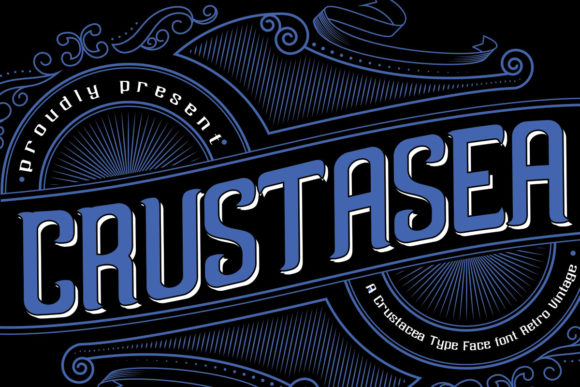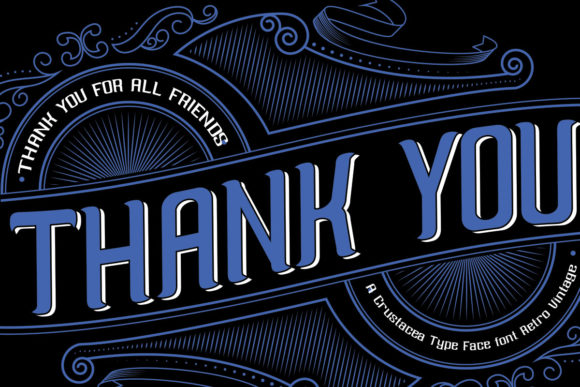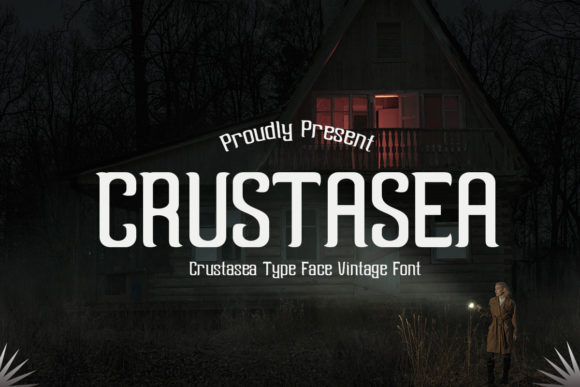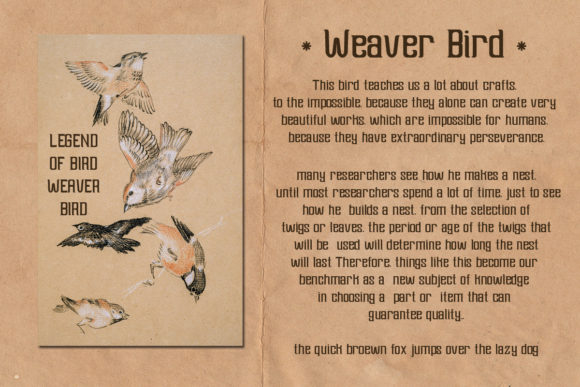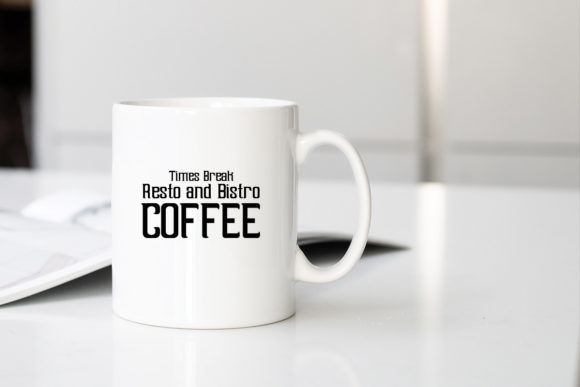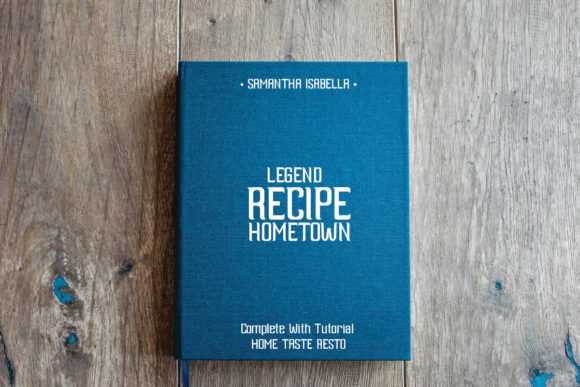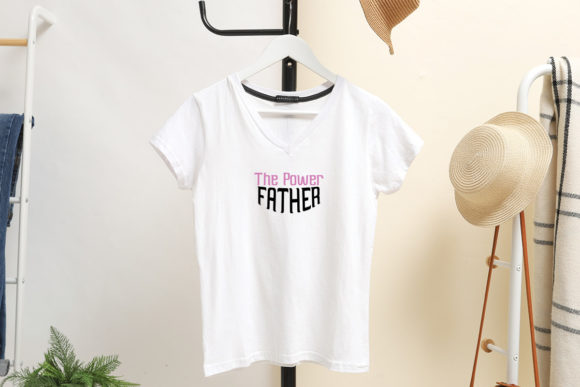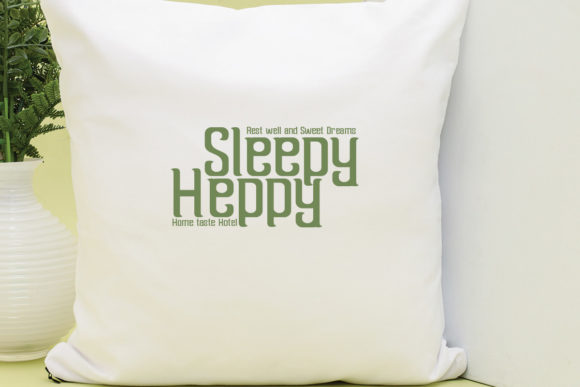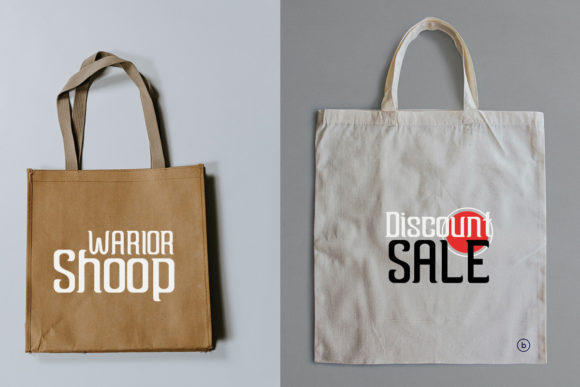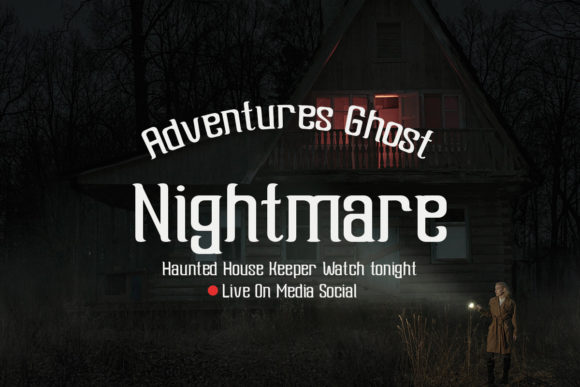
Crustasea
Crustasea: A Bold and Retro Slab Serif Font
Crustasea is a distinctive slab serif font that combines old-style charm with a modern twist. This eye-catching typeface is designed to add a bold, retro-cool look to various design projects while maintaining clarity and readability.
Key Features of Crustasea
• Old Slab Serif Design: Features classic slab serif characteristics with a contemporary update.
• Modern Look: Offers a fresh take on retro typography for current design trends.
• Bold Presence: Provides a strong, authoritative appearance in designs.
• Clear Readability: Maintains legibility despite its bold and decorative nature.
• Retro-Cool Aesthetic: Perfect for designs requiring a vintage yet trendy vibe.
• Versatile Application: Suitable for a wide range of projects needing impactful typography.
Ideal Uses for Crustasea
Crustasea’s unique characteristics make it particularly well-suited for:
• Retro-inspired branding and logo design
• Bold headlines and titles
• Poster and advertisement layouts
• Packaging design with a vintage flair
• Editorial designs requiring a strong typographic presence
• Any project needing dashing and mighty typography
When incorporating Crustasea into your designs, consider these tips:
• Use for headlines or short blocks of text to maximize its bold and retro impact
• Experiment with different sizes to balance its strong presence in layouts
• Take advantage of its clear readability for important information in designs
Crustasea is an excellent choice for designers looking to add a bold, retro-cool slab serif font to their typographic toolkit. Its ability to symbolize designs boldly while maintaining readability makes it stand out in the world of typography. Whether you’re working on logo designs for vintage-inspired brands, creating layouts for eye-catching posters, or developing content that requires a touch of retro authority, Crustasea offers the perfect blend of old-school charm and modern impact.
Furthermore, Crustasea’s versatility allows it to shine in various contexts. From vintage-inspired designs to more contemporary layouts that need a touch of retro flair, this font can elevate your projects with its bold presence. Its clear and authoritative style works particularly well in designs that require a strong and impactful mood.
In conclusion, Crustasea is a font that truly captures the essence of retro coolness with a modern twist. Its ability to work well in both vintage-style projects and contemporary designs that require a bold, authoritative touch showcases its flexibility. For those looking to add a dash of retro-cool style to their work, Crustasea can even enhance themed creations with its unique, mighty character. It’s the perfect choice for designs that need to make a bold statement while maintaining a touch of vintage charm.